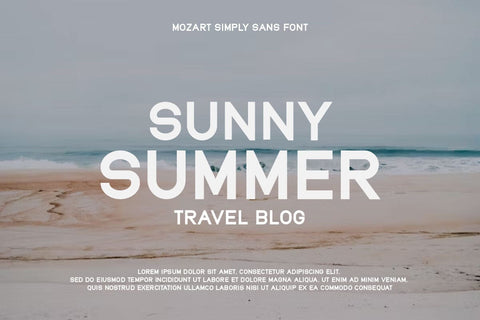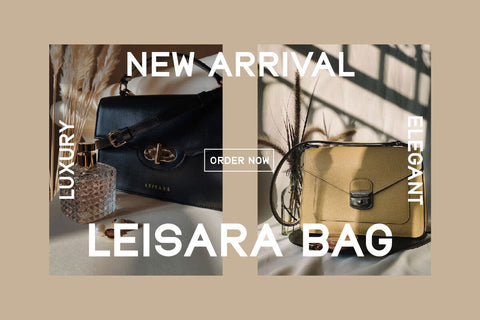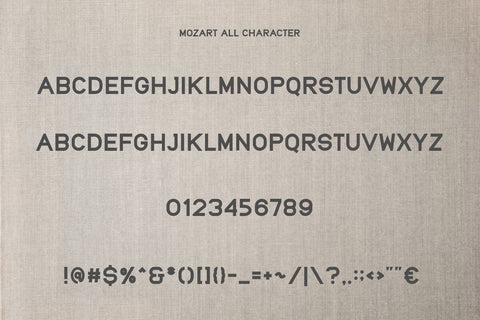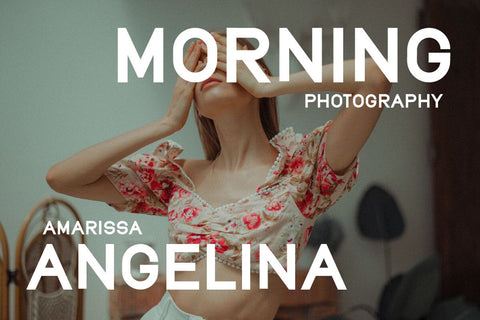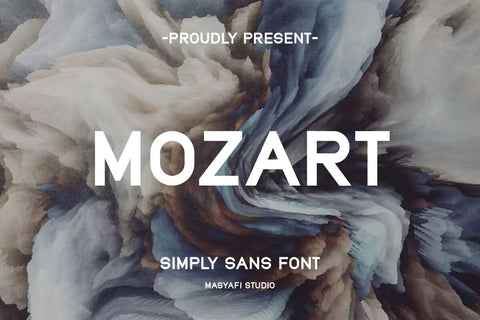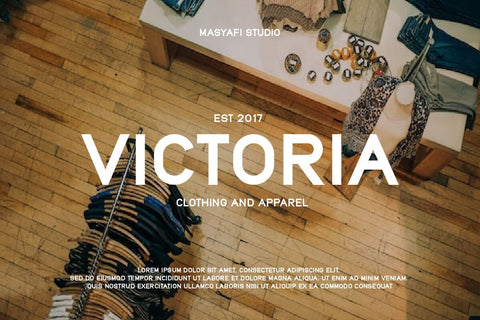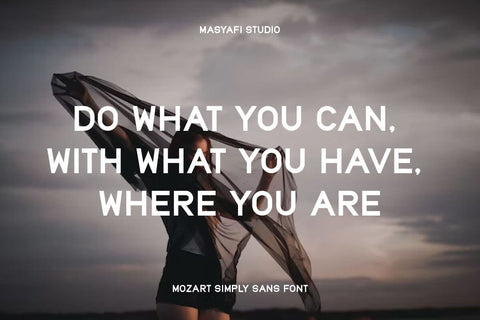
Mozart - Simply Sans Serif Font
Introducing Mozart - Simply Sans Serif Font
Discover the effortless sophistication of "Mozart," a clean and elegant sans serif font that brings timeless style to your design projects.
Key Features:
✒️ Elegantly Minimalist: Mozart offers a minimalist and modern approach to sans serif lettering, making it versatile for a wide range of design applications.
✒️ Versatile Usage: Perfect for web design, professional documents, editorial projects, and sleek corporate branding. Elevate your designs with clean, contemporary typography.
✒️ Clean and Timeless: Mozart's clean lines and sleek typography bring classic elegance to your work, enhancing your corporate identity and logo design.
✒️ Customizable: Tailor the font to your unique vision by adjusting letter spacing and design elements with ease.
Elevate your design projects with "Mozart - Simply Sans Serif Font." Whether you're crafting professional presentations or developing a clean and timeless website, this font is your key to understated elegance.